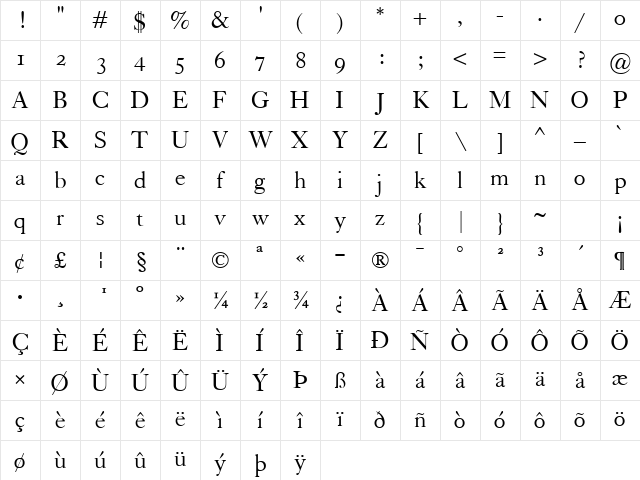
Caslon Classico Regular Free Font
Caslon Classico Regular
Caslon Classico Family
Design Context for Caslon Classico
Caslon Classico wears its vintage influences proudly, with letterforms that recall mid-century signage, classic packaging, and nostalgia-driven design.
Font Pairing: Combine Caslon Classico with a simple slab or neutral sans - period-accurate companions reinforce the vintage feel without competing for attention.
Pro Tip: Lean into Caslon Classico's period character by pairing it with aged paper textures, muted colour palettes, and vintage illustration styles.